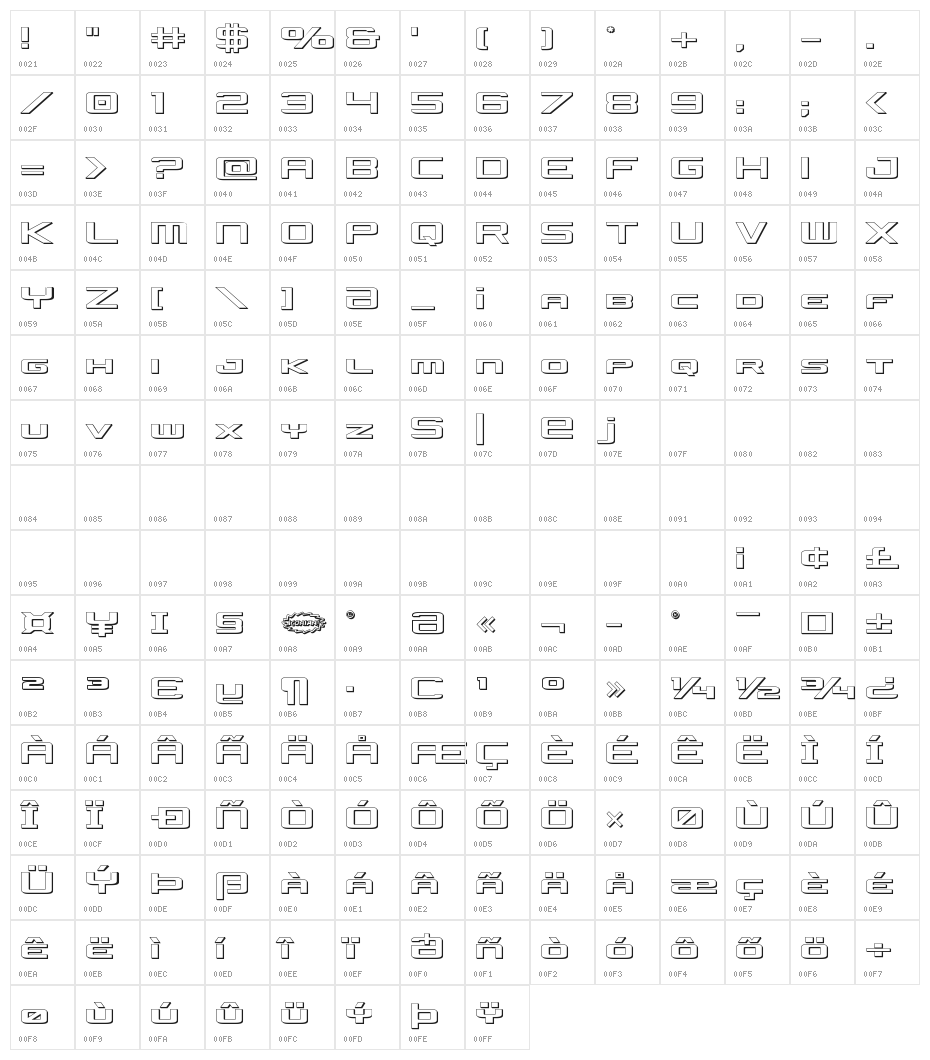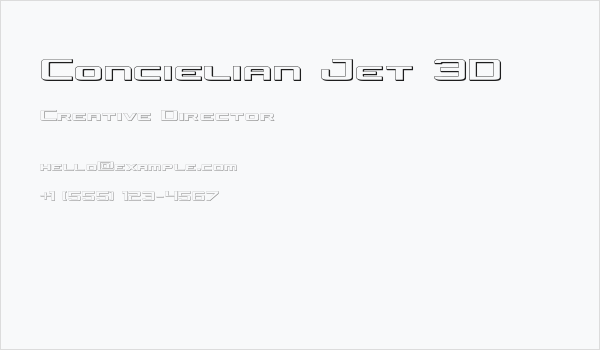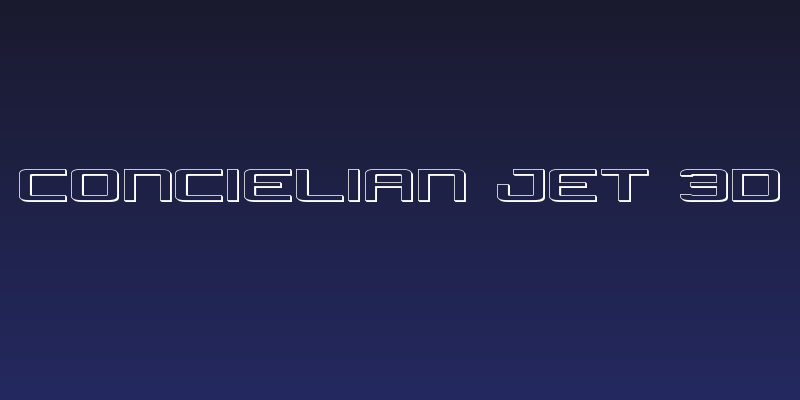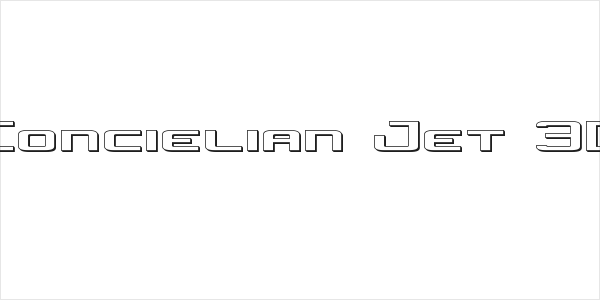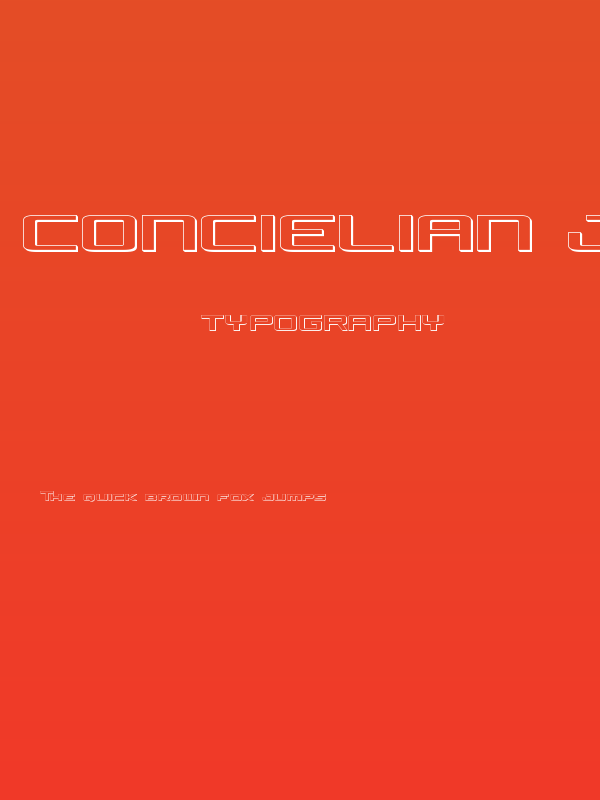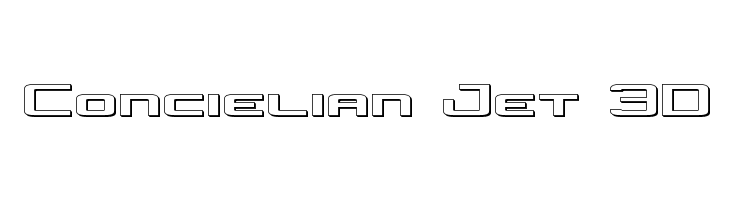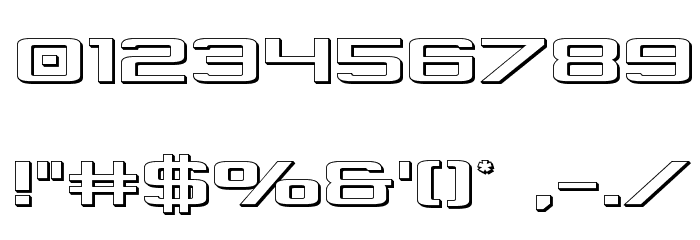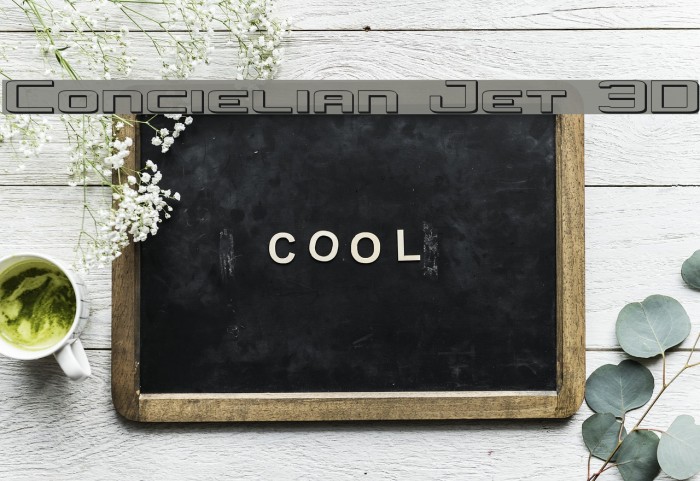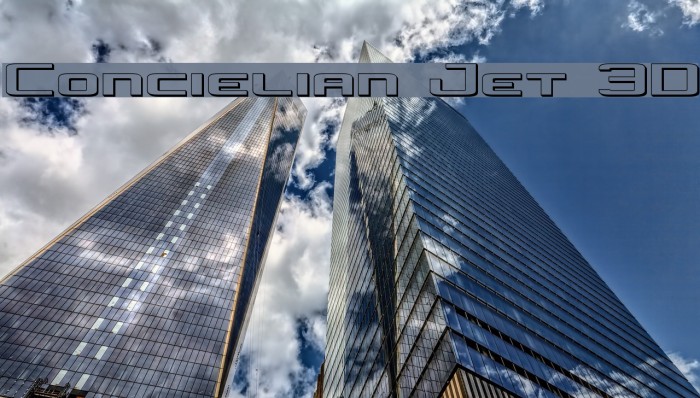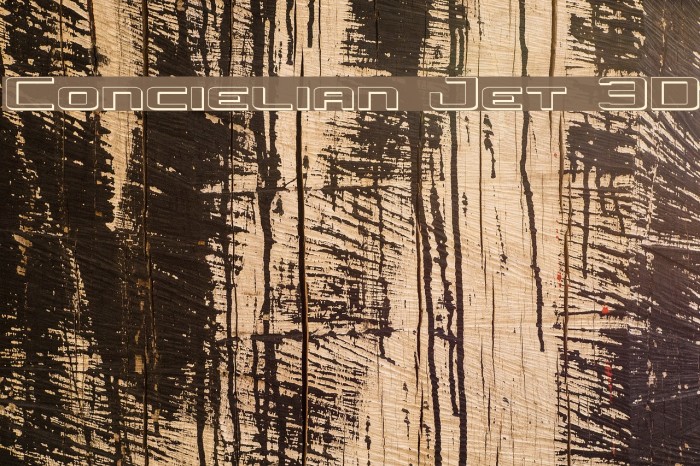
Concielian Jet 3D Font
Concielian Jet 3D Description
This font features a futuristic, three-dimensional design with a hollow, outlined structure that gives each character a bold and striking appearance. The geometric shapes are consistent throughout, with sharp angles and clean lines that create a sense of precision and modernity. The uppercase and lowercase letters maintain a uniform style, enhancing readability while adding a unique visual appeal. Numbers and special characters are crafted with the same attention to detail, making them stand out in any design. The font's distinct style is perfect for projects that require a modern, tech-inspired look.
| Proposed Projects | Ideal for tech branding, sci-fi posters, video game titles, and modern advertising. |